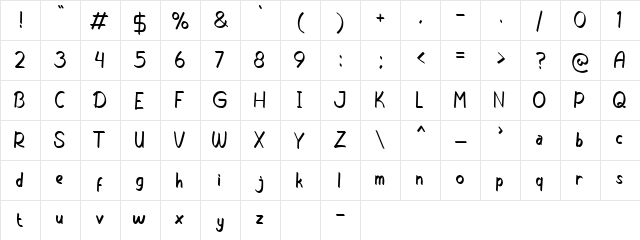
Khilafah Regular
Design Context for Khilafah Typeface
Khilafah takes a measured approach to typography — its balanced proportions and neutral character make it a reliable workhorse for both digital and print work.